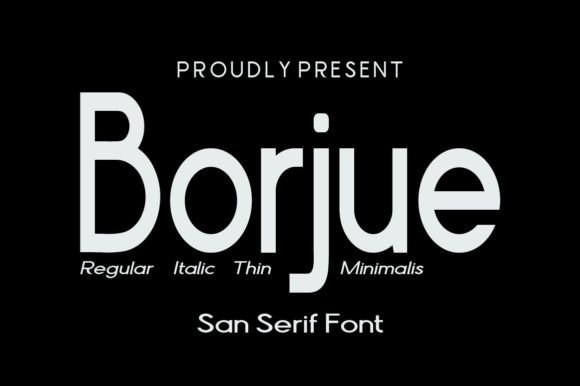
Borjue Font: Elevate Your Design with Timeless Elegance
In the world of typography, fonts play a crucial role in conveying the tone and aesthetic of a project. Whether you’re designing a logo, creating a brand identity, or crafting a website, the right font can make all the difference. Introducing Borjue, a stunning sans serif font that’s timeless and elegant. Its classic design exudes sophistication, while its sleek lines bring a modern touch to any project. With Borjue, your text will always look effortlessly beautiful.
What is Borjue Font?
Borjue is a sans serif font that embodies the perfect blend of classic and modern design elements. Its clean lines, subtle curves, and balanced proportions make it an ideal choice for a wide range of applications, from print materials to digital platforms. The font’s timeless elegance ensures that it will remain relevant for years to come, making it a valuable addition to any designer’s toolkit.
Key Design Features of Borjue Font
- Clean Lines: Borjue’s sleek lines and minimalist design make it perfect for creating modern and sophisticated designs.
- Balanced Proportions: The font’s carefully crafted proportions ensure that it remains legible and visually appealing, even at smaller sizes.
- Subtle Curves: Borjue’s subtle curves add a touch of elegance and sophistication to the font, making it ideal for high-end designs.
- Timeless Design: Borjue’s classic design ensures that it will remain relevant for years to come, making it a valuable investment for designers.
Uses and Applications of Borjue Font
Borjue’s versatility makes it suitable for a wide range of applications, including:
- Logo Design: Borjue’s clean lines and elegant design make it perfect for creating sophisticated logos.
- Branding: The font’s timeless design ensures that your brand identity will remain consistent and professional across all platforms.
- Web Design: Borjue’s legibility and visual appeal make it an excellent choice for website design, ensuring that your content is easily readable and engaging.
- Print Materials: The font’s classic design makes it suitable for print materials, such as brochures, flyers, and business cards.
Benefits of Using Borjue Font
By incorporating Borjue into your design projects, you can:
- Elevate Your Design: Borjue’s timeless elegance and modern touch can instantly elevate the sophistication of your designs.
- Improve Legibility: The font’s clean lines and balanced proportions ensure that your text is easily readable, even at smaller sizes.
- Enhance Brand Identity: Borjue’s classic design can help create a consistent and professional brand identity across all platforms.
- Save Time: With Borjue, you can create stunning designs quickly and efficiently, saving you time and effort.
Tips for Using Borjue Font
To get the most out of Borjue, consider the following tips:
- Pair with Other Fonts: Borjue pairs well with other fonts, so experiment with different combinations to create visually appealing designs.
- Adjust Font Sizes: Adjust the font size to suit your design needs, ensuring that your text is easily readable and engaging.
- Use Bold and Italic Styles: Use Borjue’s bold and italic styles to add emphasis and create visual hierarchy in your designs.
In conclusion, Borjue is a stunning sans serif font that’s perfect for designers looking to elevate their designs with timeless elegance. Its classic design, sleek lines, and balanced proportions make it an ideal choice for a wide range of applications. With Borjue, you can create effortlessly beautiful designs that will leave a lasting impression on your audience.